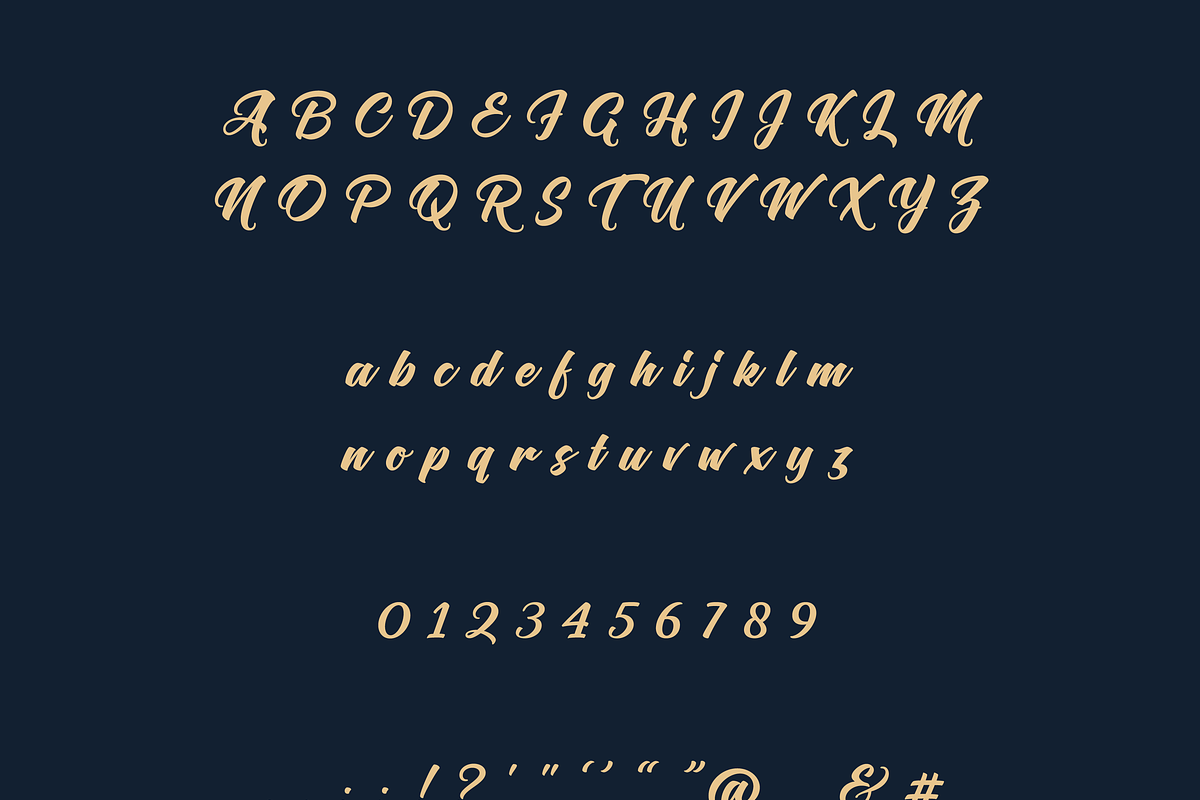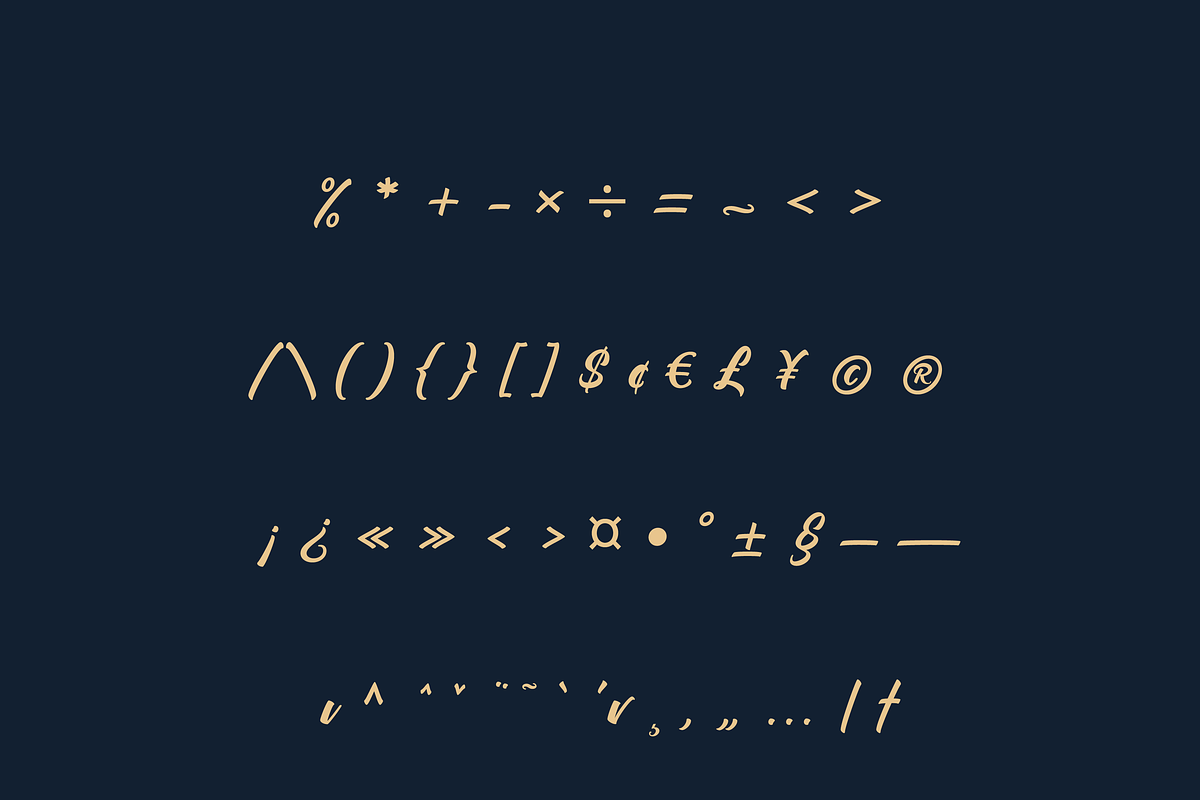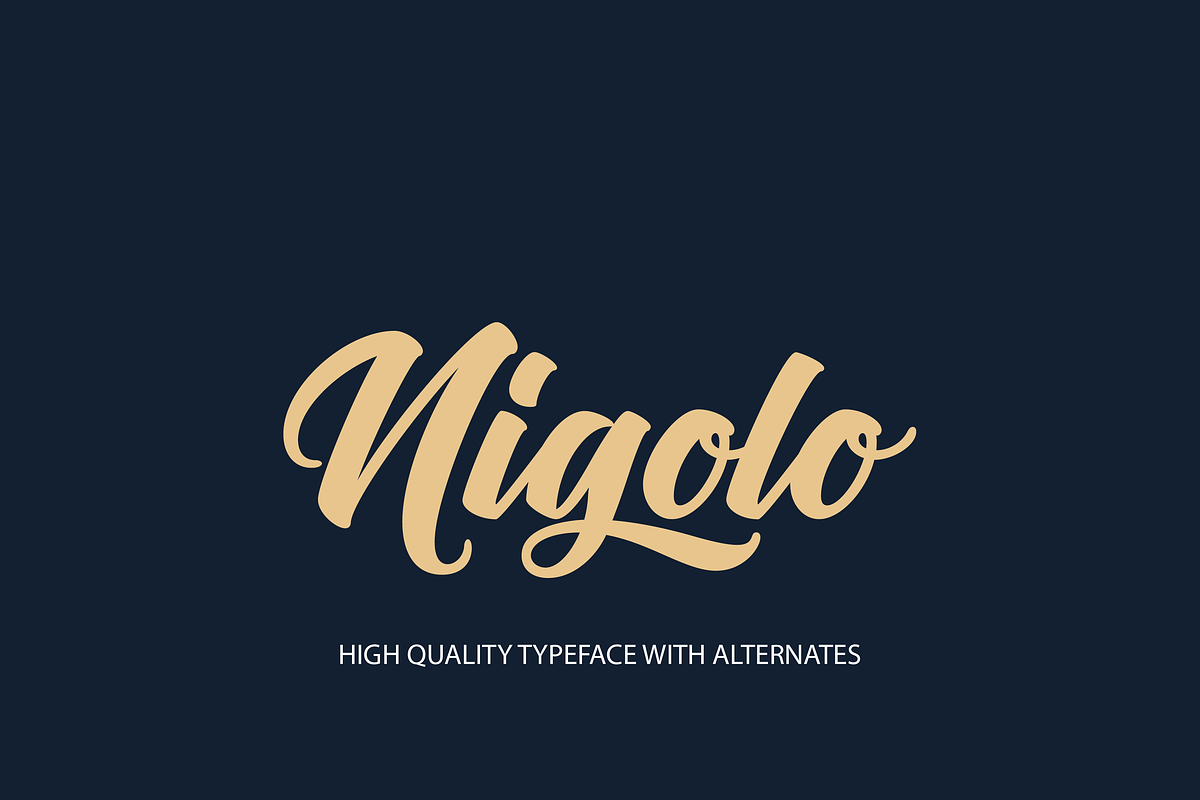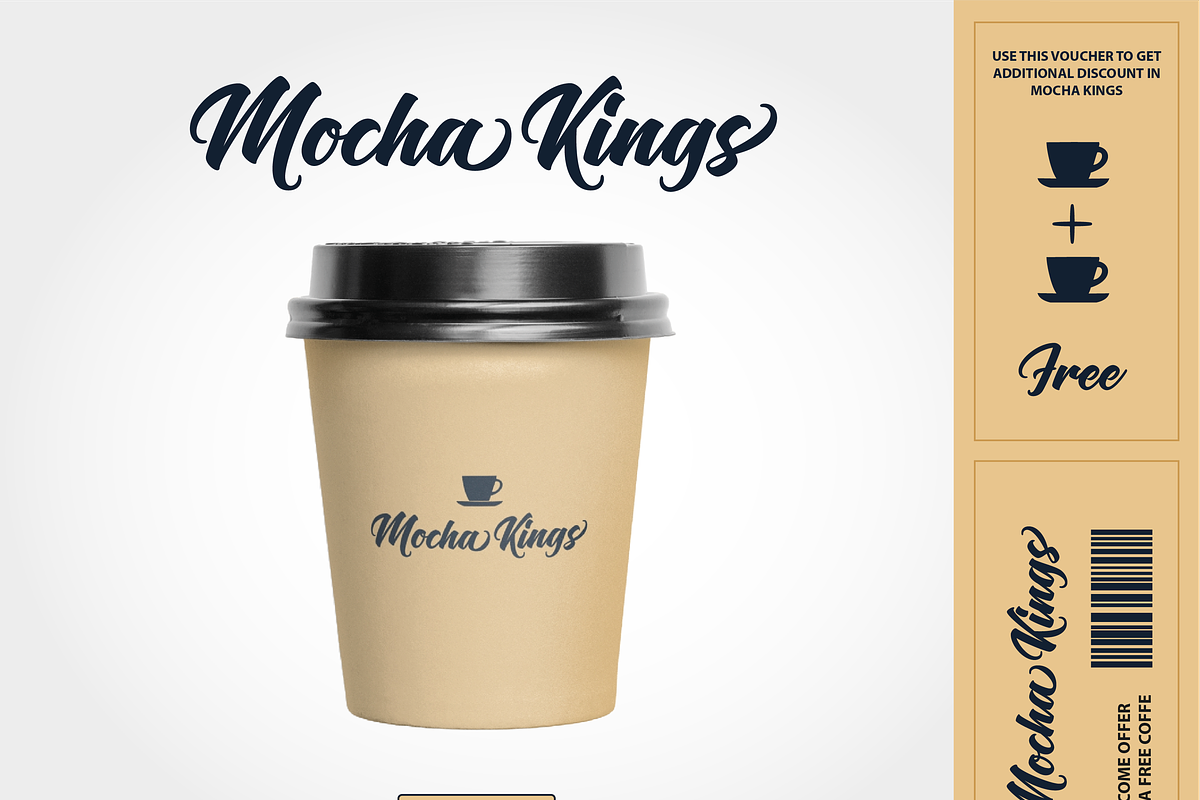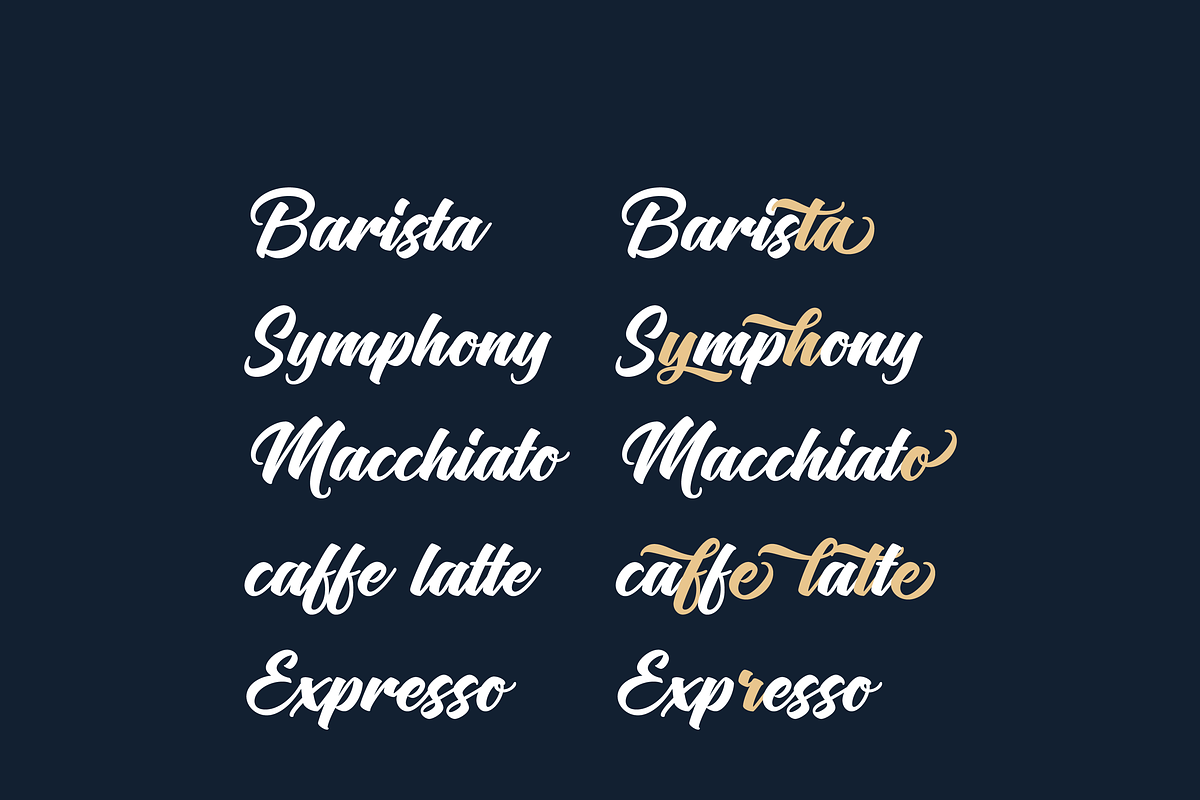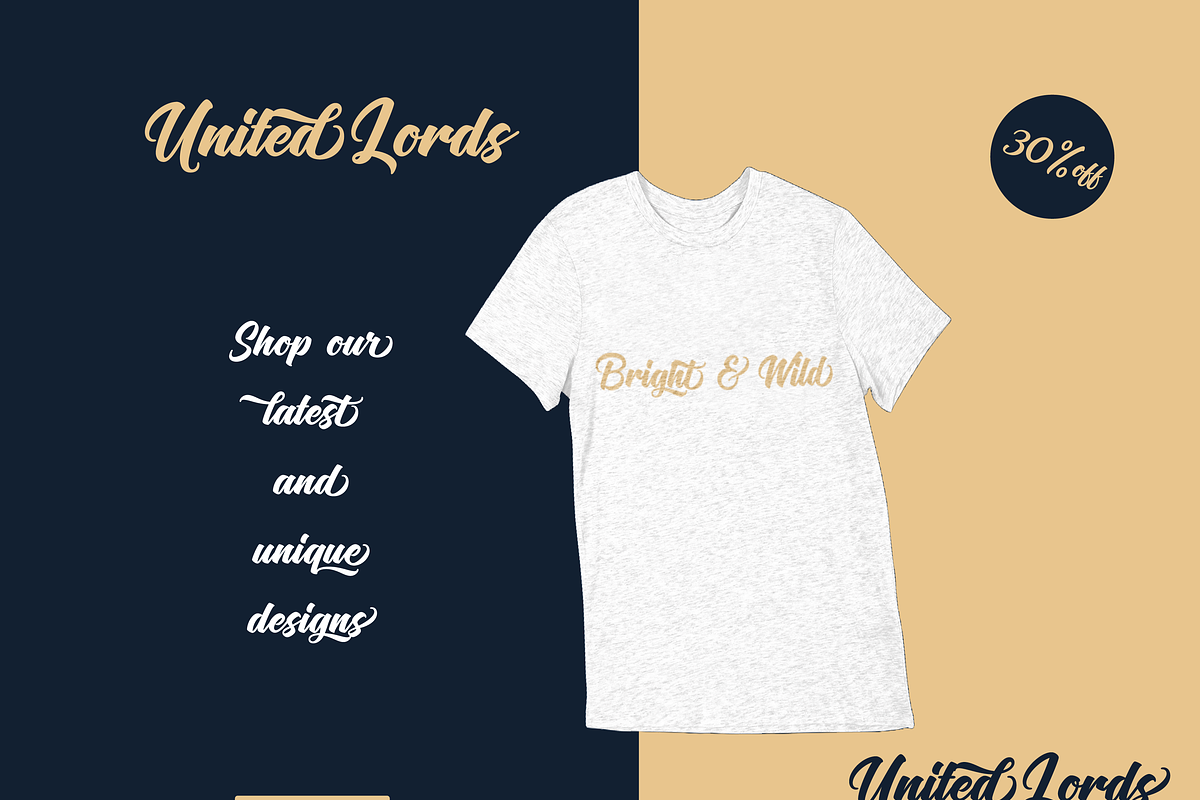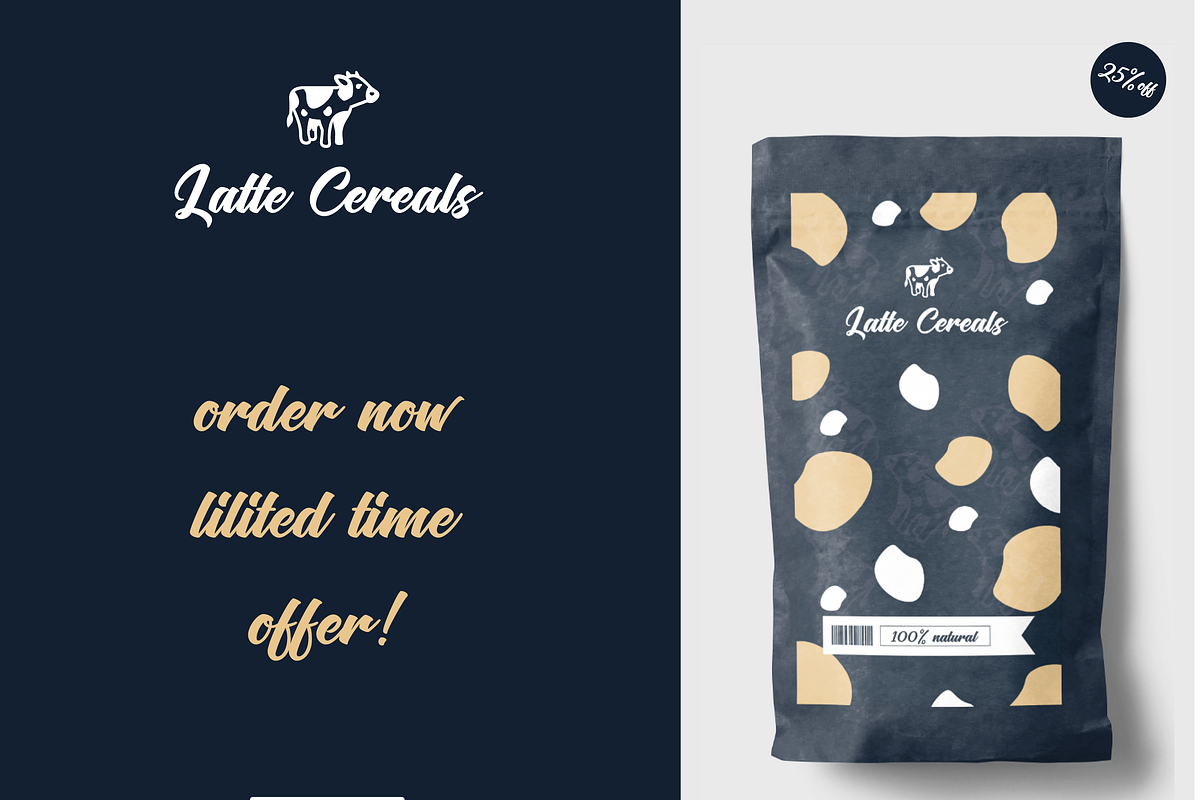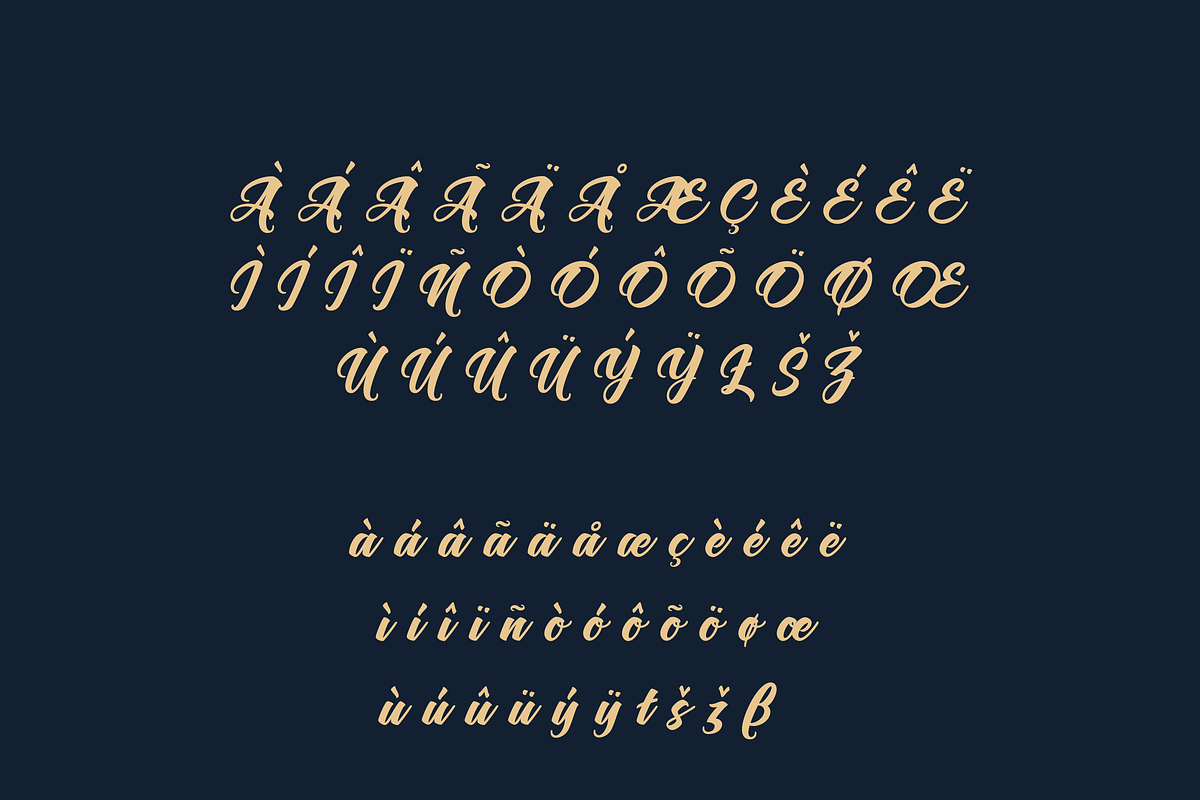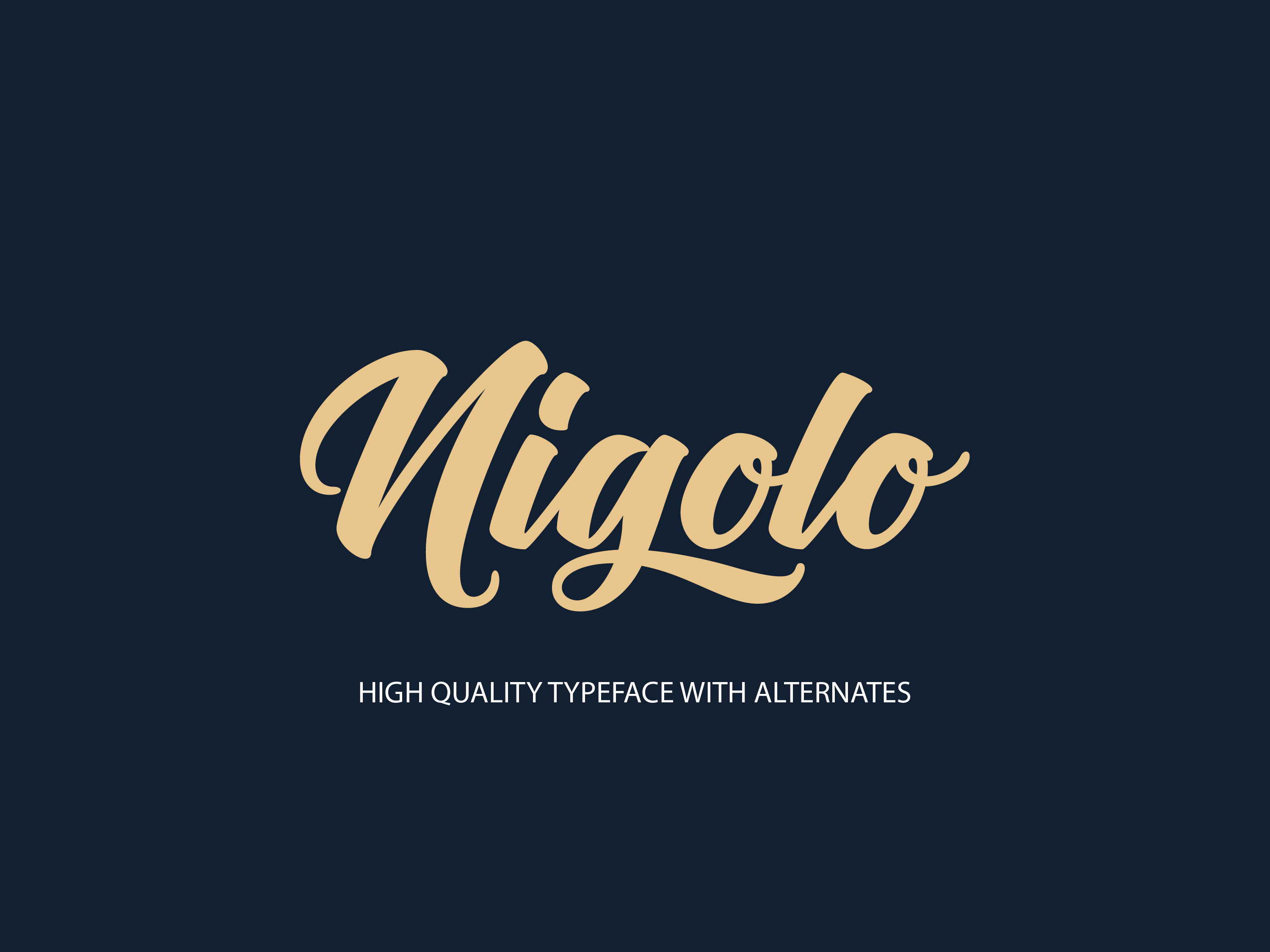
Nigolo Script Font
Nigolo – Bold and Stylish Script Font
Nigolo is a bold, stylish script font that combines flair and elegance, making it the perfect choice for a wide range of design projects. Whether you're working on posters, magazine covers, t-shirt designs, flyers, logotypes, or more, this font brings a sense of confidence and creativity to any design.
With its bold lines, smooth curves, and variety of stylistic options, Nigolo is a versatile font that allows you to elevate your designs while maintaining a unique, polished look. Whether you want to add a vintage, modern, or playful feel, Nigolo’s stylistic sets provide endless possibilities for customization.